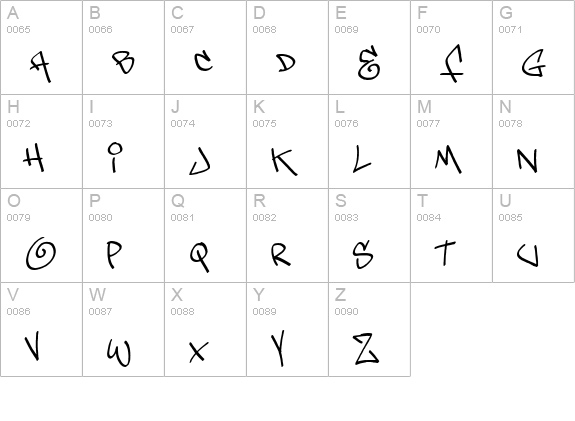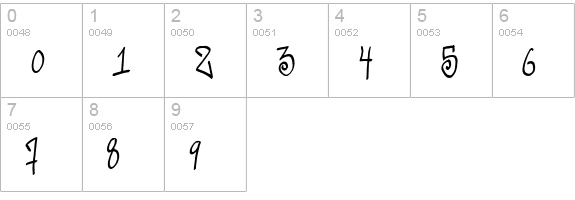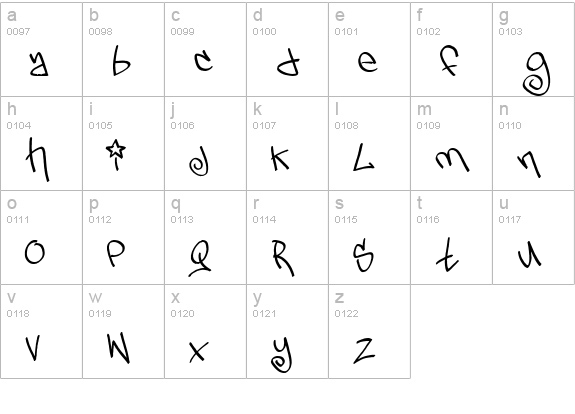
TagsXtreme2 is a bold and eye-catching font that is perfect for making a statement. Its unique design features sharp edges and exaggerated letterforms, giving it a distinct and edgy look. Whether you are creating a logo, poster, or any other design project, TagsXtreme2 is sure to grab attention and leave a lasting impression. One of the best things about TagsXtreme2 is that it is completely free! Yes, you read that right. This font is freely available to download at FontsMarket.com. Now, you can add this incredible font to your collection without worrying about breaking the bank. With TagsXtreme2, you have the freedom to explore your creativity and experiment with different styles. Its bold and powerful presence will make your designs stand out from the crowd. The versatility of this font allows it to be used in a wide range of projects, from branding and advertising to social media graphics and website designs. In addition to its striking appearance, TagsXtreme2 also offers excellent legibility. Each letter is carefully crafted to ensure clarity and readability, making it suitable for both small and large text sizes. This means that your message will always be conveyed effectively, no matter the context. So, why wait? Don't miss out on the opportunity to enhance your designs with TagsXtreme2. Download this fantastic font for free at FontsMarket.com and take your creations to the next level. Unleash your creativity and make a bold statement with TagsXtreme2 today!